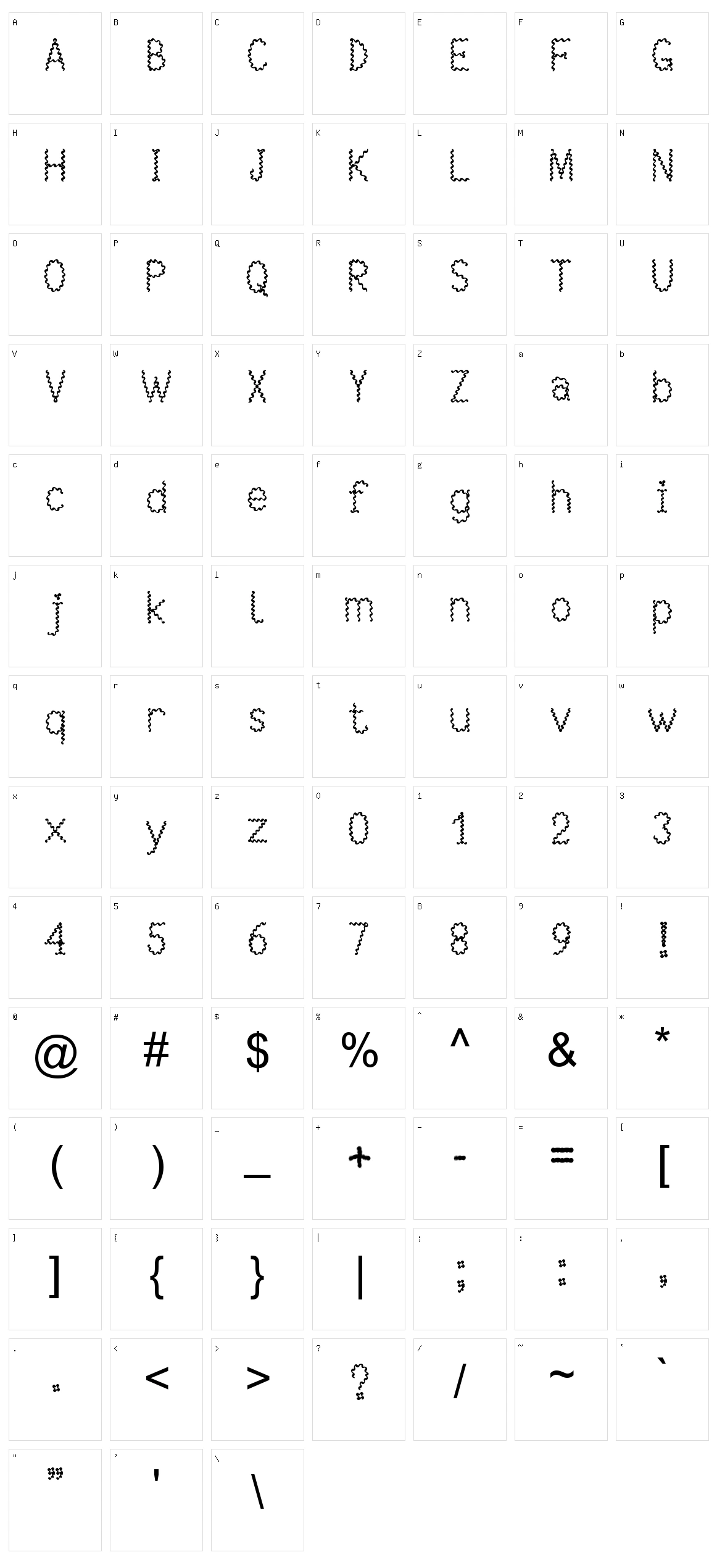
The free font Bymberangiykas is carefully designed by Vlad Viperov, showcasing a thoughtful balance of creativity and usability and falls under the Distorted font style. When you download the ZIP file, it contains only 401.16 KB of font files, making it lightweight and quick to download. Please review the license details below to understand permitted usage and distribution rights. If license information is not available, we recommend using this font for personal projects only or contacting the author directly for commercial usage permissions.
Bymberangiykas is very cool font for use in all places.